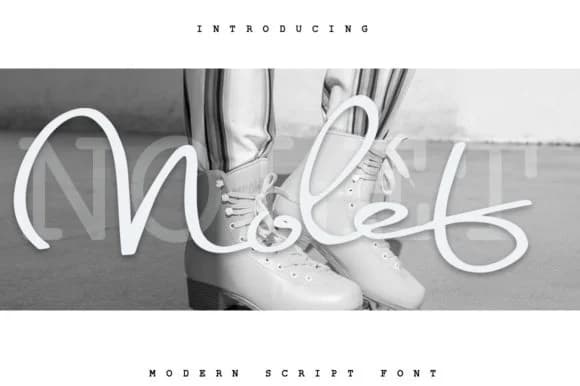
Nolet by Katie Holland is a carefully crafted handwritten script that captures the fluidity of hand lettering without sacrificing readability. The font's gentle, organic letterforms make it ideal for work that needs personality without looking overly decorative. Wedding invitation suites get a real boost from Nolet's refined strokes, which bring warmth and human touch to formal announcements. It works equally well on cosmetic and skincare packaging, boutique greeting cards, custom monogram designs for stationery, and even craft project labels where handmade appeal matters.
The letterforms have a natural, unhurried quality that translates beautifully on screen and in print. Unlike more rigid scripts, Nolet feels conversational and approachable, which makes it particularly useful for small business branding where you want to convey personality over corporate polish. You'll see it shine on social media graphics, indie book covers, wedding menus, and any project where genuine warmth beats slick perfection. The script's balance of elegance and accessibility means it doesn't overwhelm smaller point sizes, making it practical as well as beautiful.
Nolet Font is a script font that shines as a display or heading face. Pair it with a clean sans-serif or serif font for body text β the contrast creates a clear hierarchy while the two styles stay balanced and easy to read.